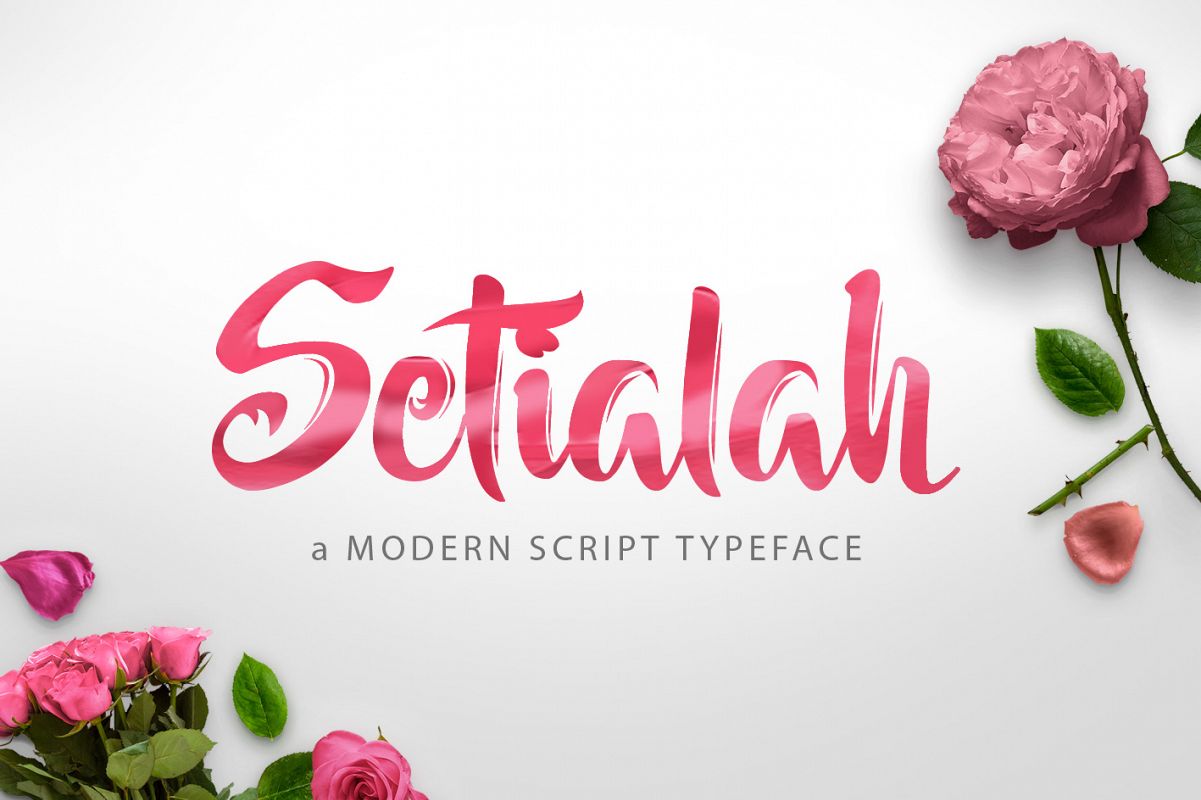
Setialah is a brush inspired font with a modern abstract
feel to it! It was created to meet the needs of many projects, including art,
posters, newsletters, invites, titles and more!